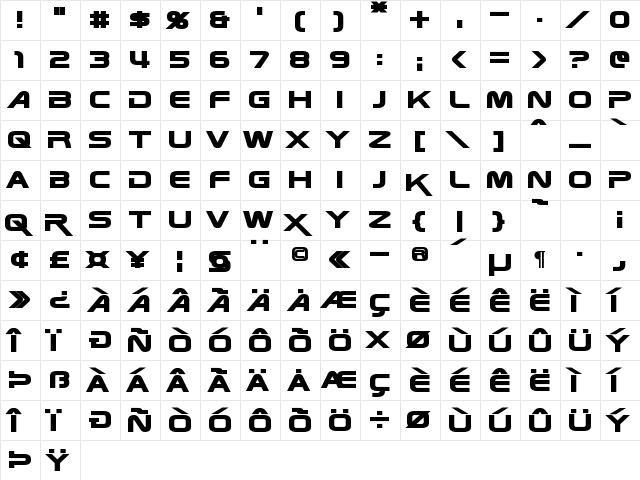
Zebulon Bold
| Foundry | Neale Davidson |
| Designer | Neale Davidson |
Design Context for Zebulon Typeface
Zebulon takes a measured approach to typography — its balanced proportions and neutral character make it a reliable workhorse for both digital and print work. The heavy weight commands attention and anchors typographic hierarchies.